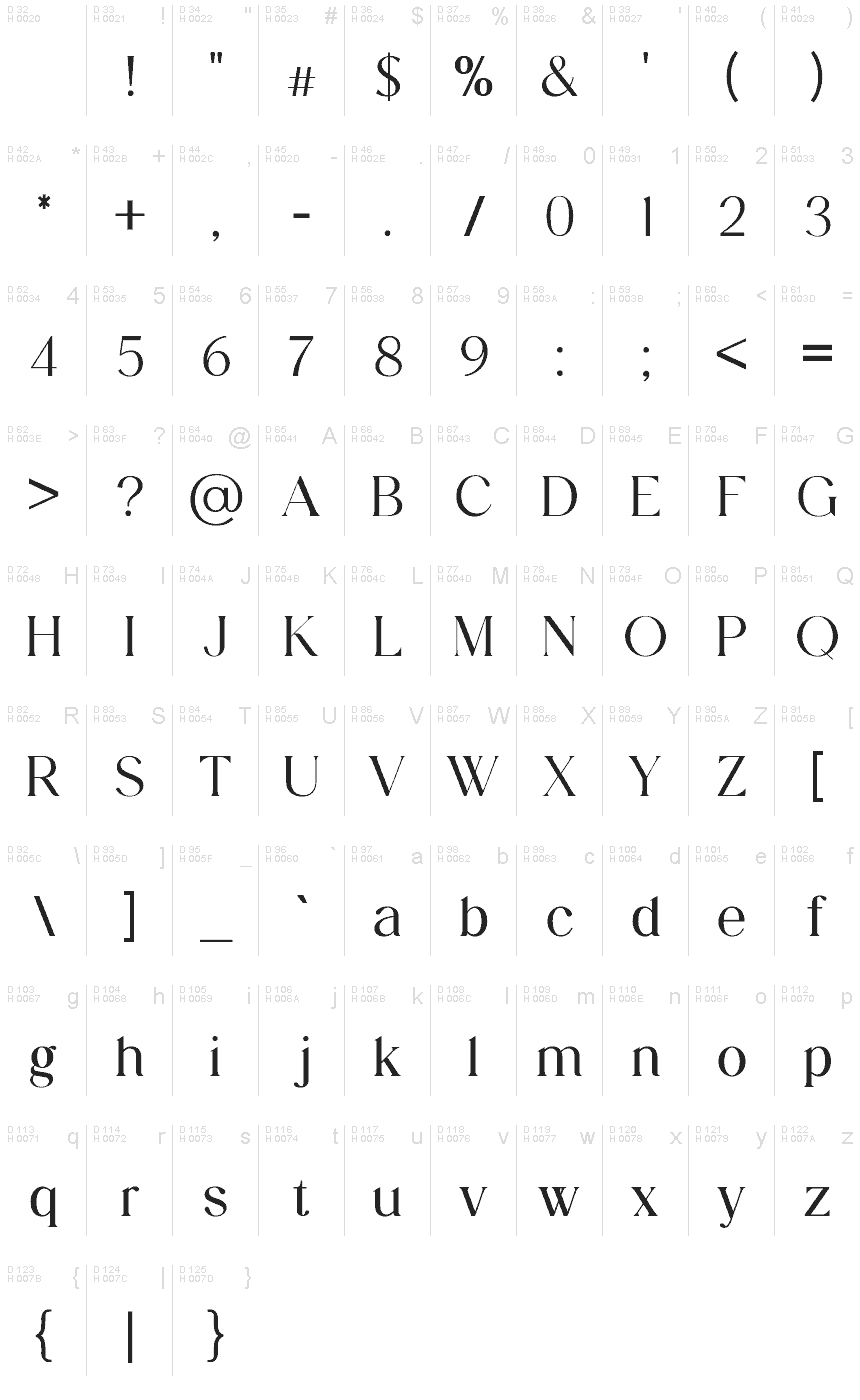
newsweekly Regular
Newsweekly font by UI Creative is a classic serif that exudes elegance and sophistication. Its authoritative presence is felt through each letter, delivering professional-looking results in every project. Serenely elegant, this beautiful font was meant for brands who appreciate the art of tone delivery that includes the choice and usage of fonts.
They say don’t judge a book by its cover but if it has been nicely typeset with Newsweekly’s free serif font, you can actually tell a lot about it already. This refined font can be successfully used in branding designs, magazines, newspapers, logos, social media posts or headers among many other projects.